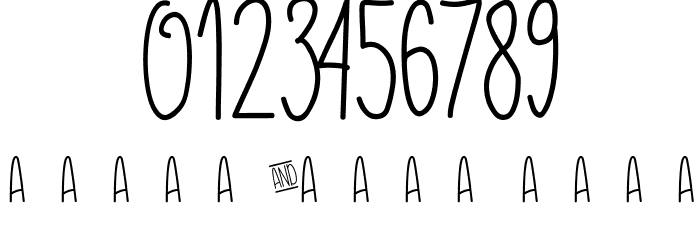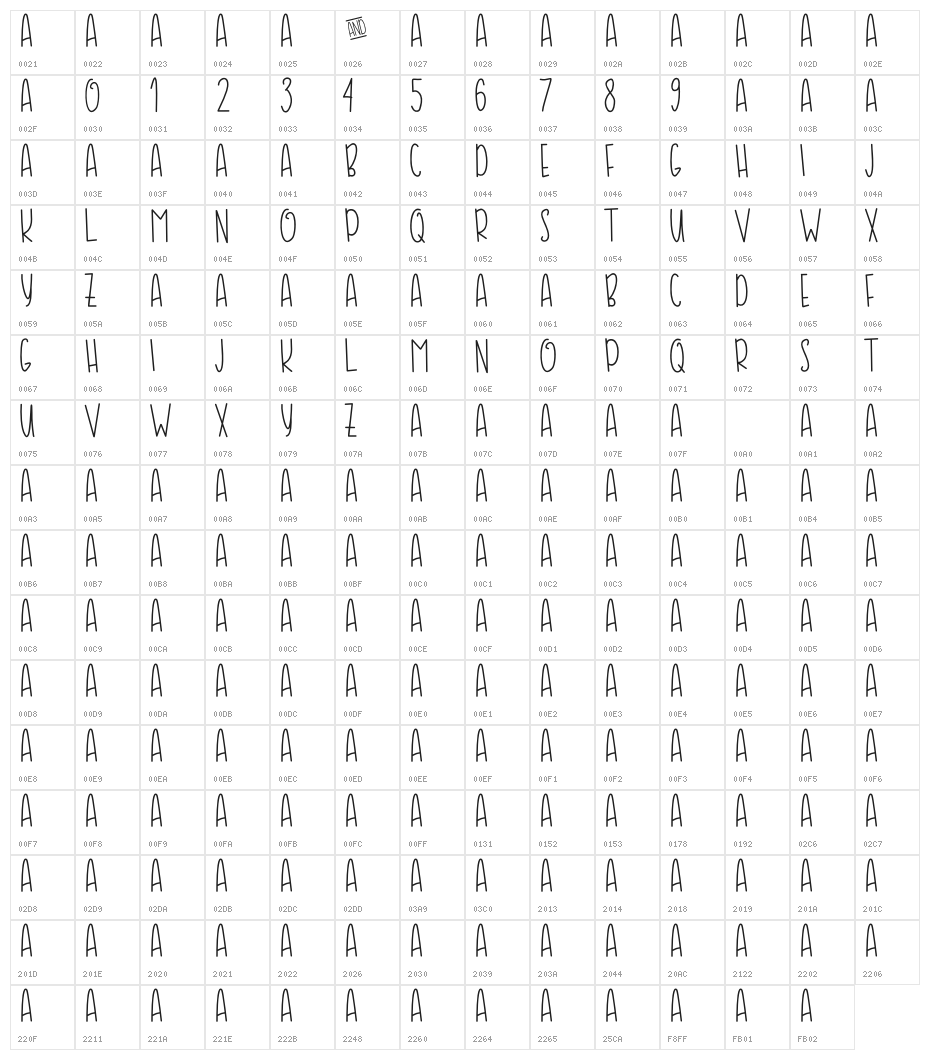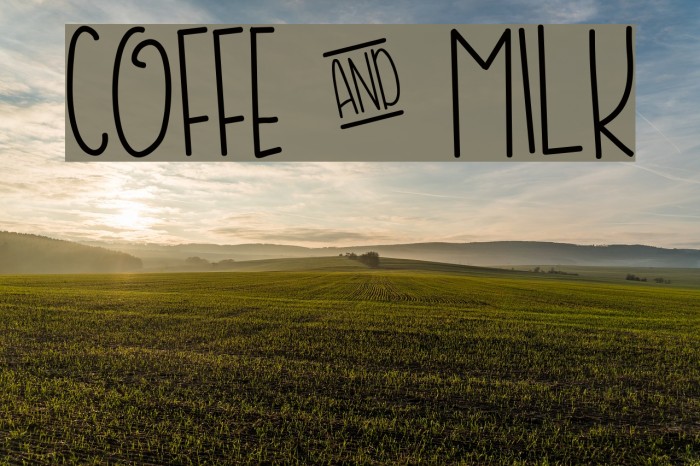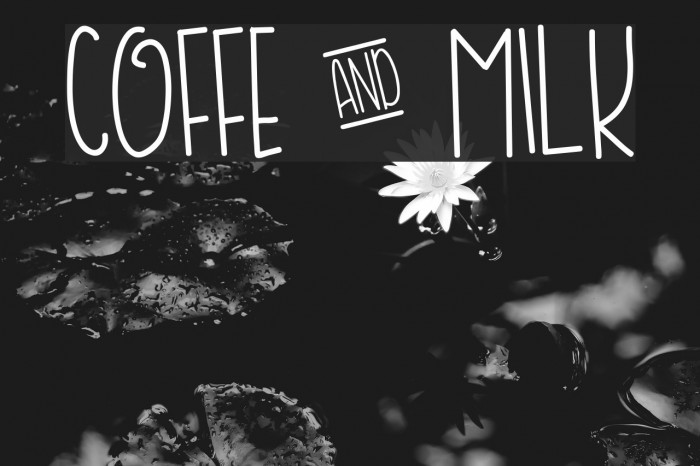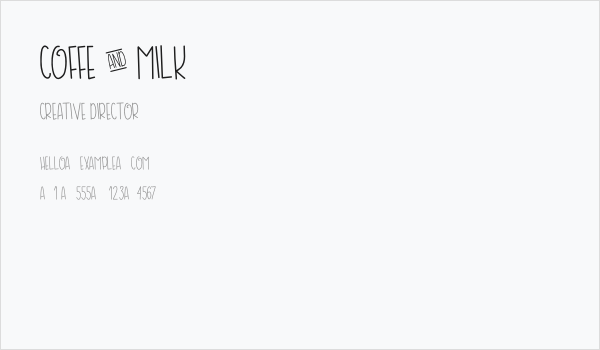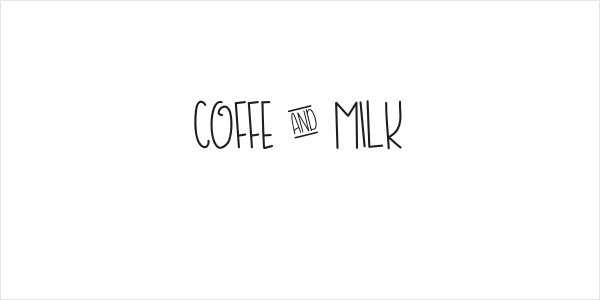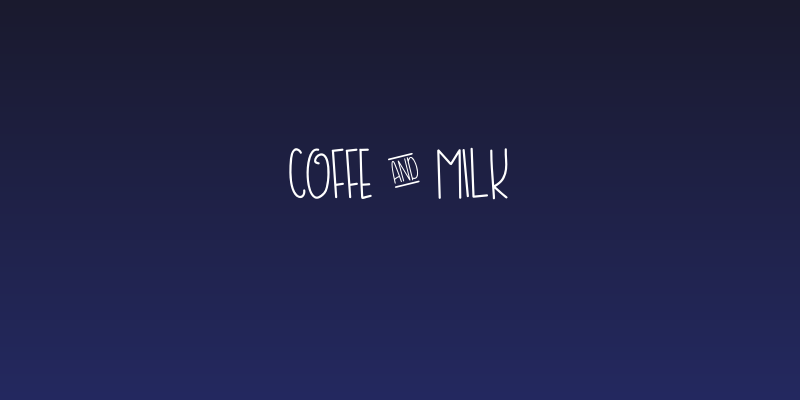
COFFE & MILK Font
This font features a playful and whimsical style, characterized by its tall, narrow letters with a hand-drawn appearance. The strokes are consistent in width, giving it a clean and uniform look. The uppercase and lowercase letters maintain a cohesive design, with rounded edges and a slightly irregular baseline that adds to its charm. The numerals are similarly styled, ensuring readability while maintaining the font's unique personality. This font is ideal for projects that require a friendly and approachable aesthetic.
| Proposed Projects | Ideal for children's books, greeting cards, playful branding, and creative posters. |